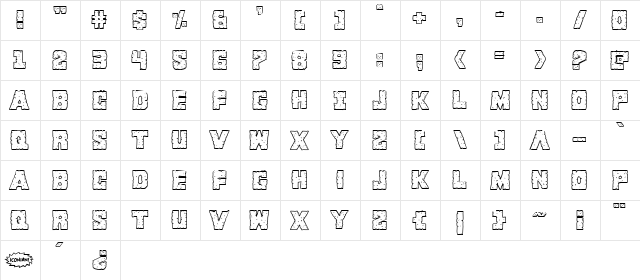
King Commando Shadow Regular
Design Context for King Commando Shadow Typeface
King Commando Shadow brings ornamental detail and strong personality to headlines and identities, where visual impact matters more than quiet functionality.
Font Pairing: Pair with a clean neutral sans-serif for body copy to let King Commando Shadow's character lead without overwhelming the composition.
Pro Tip: Treat King Commando Shadow as the centrepiece of your typographic hierarchy. One strong heading set in a decorative face can carry an entire layout.